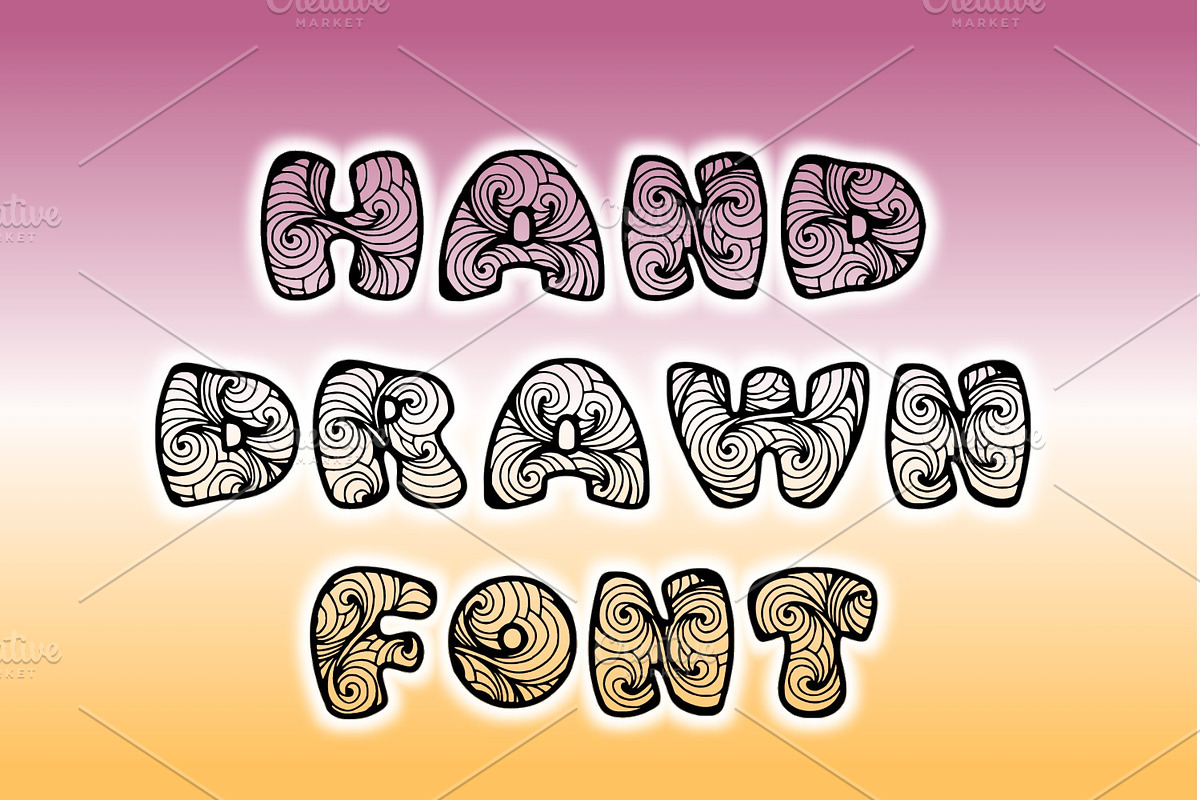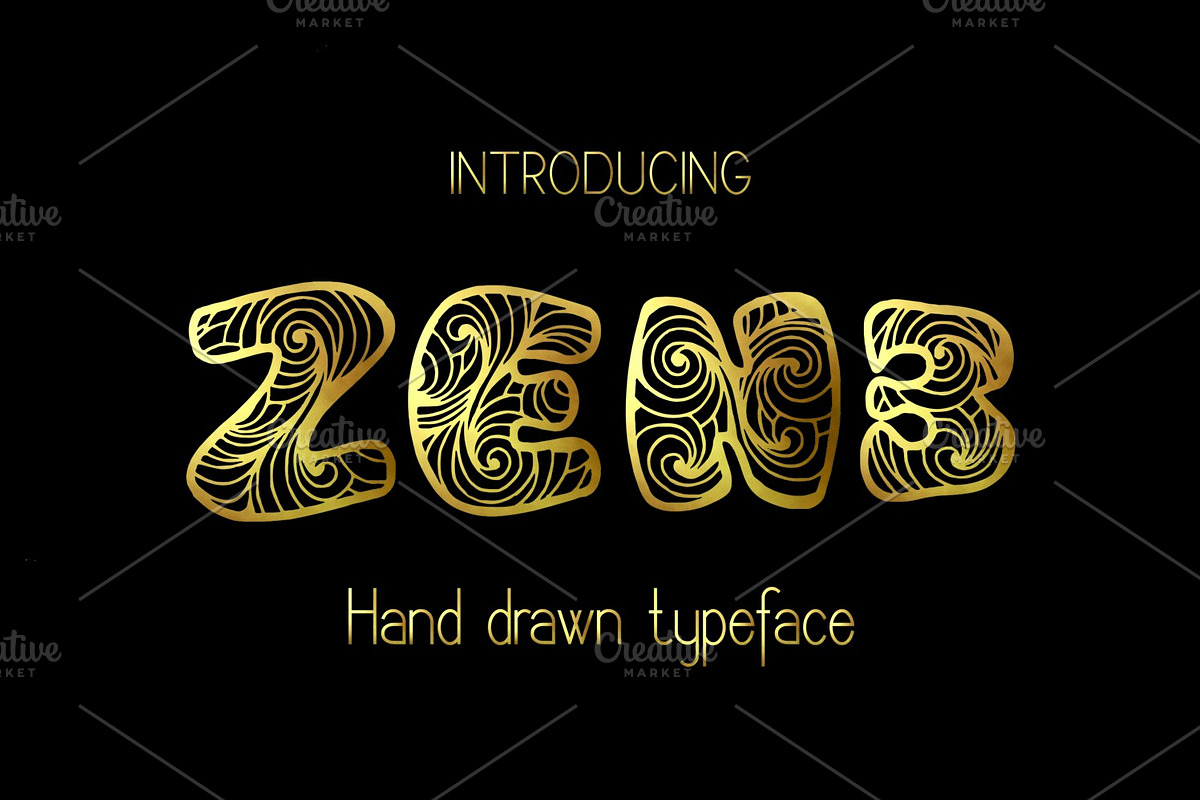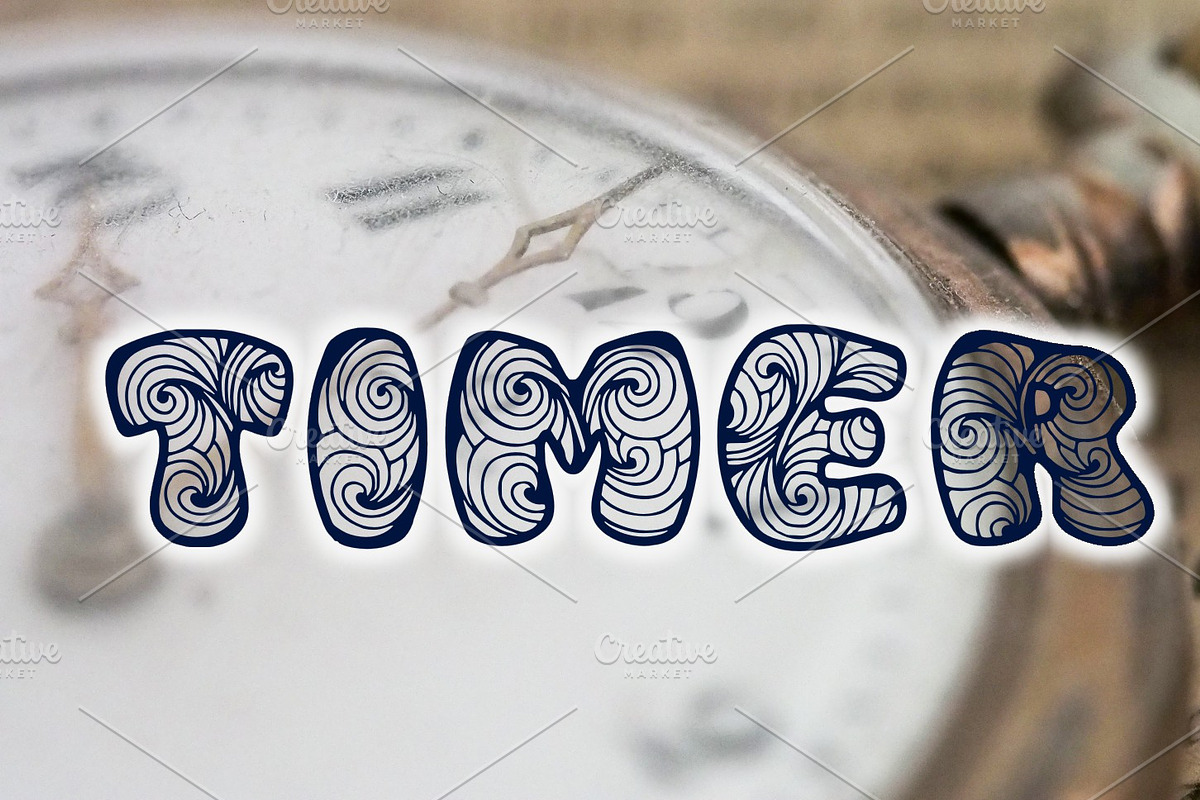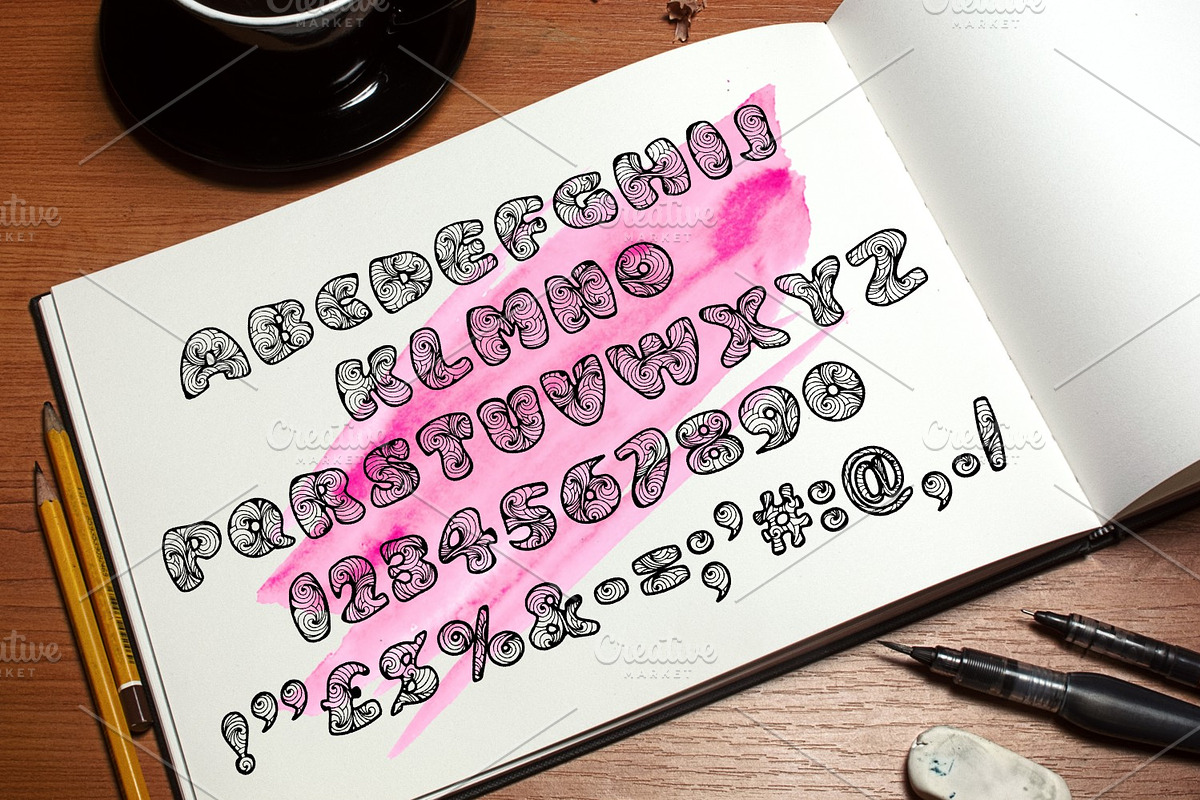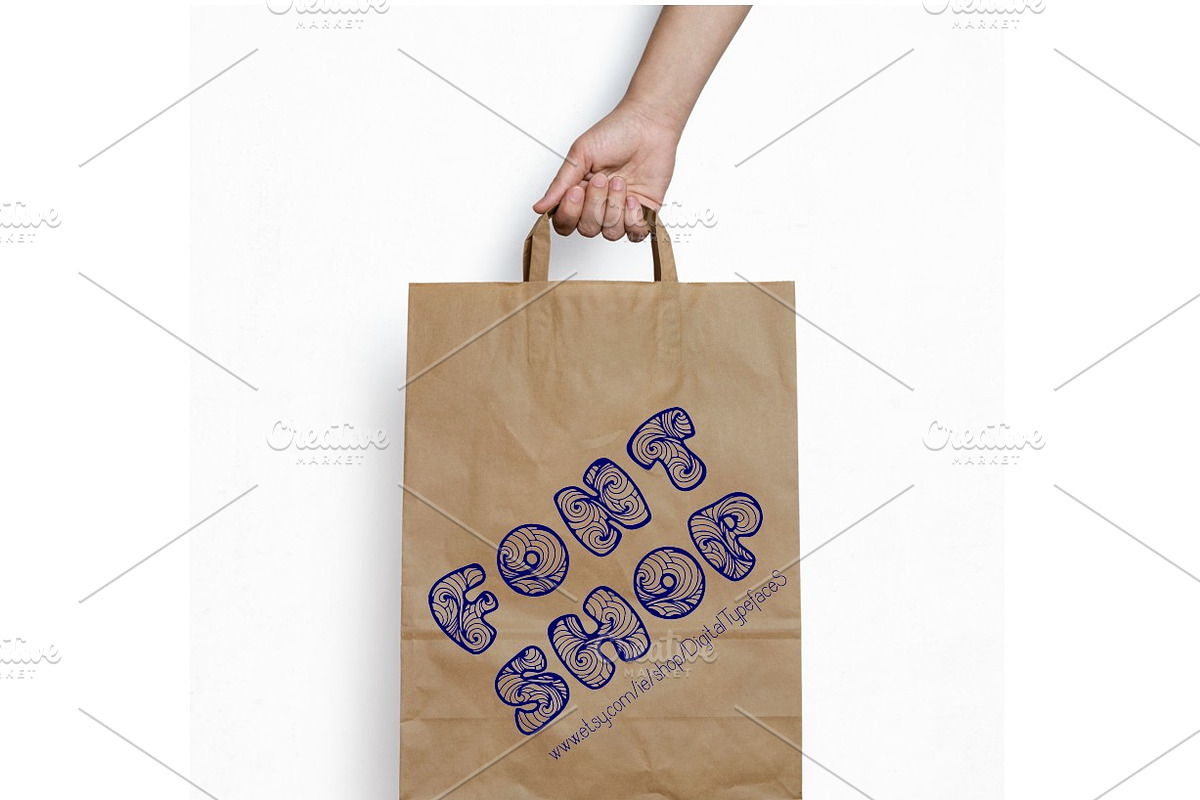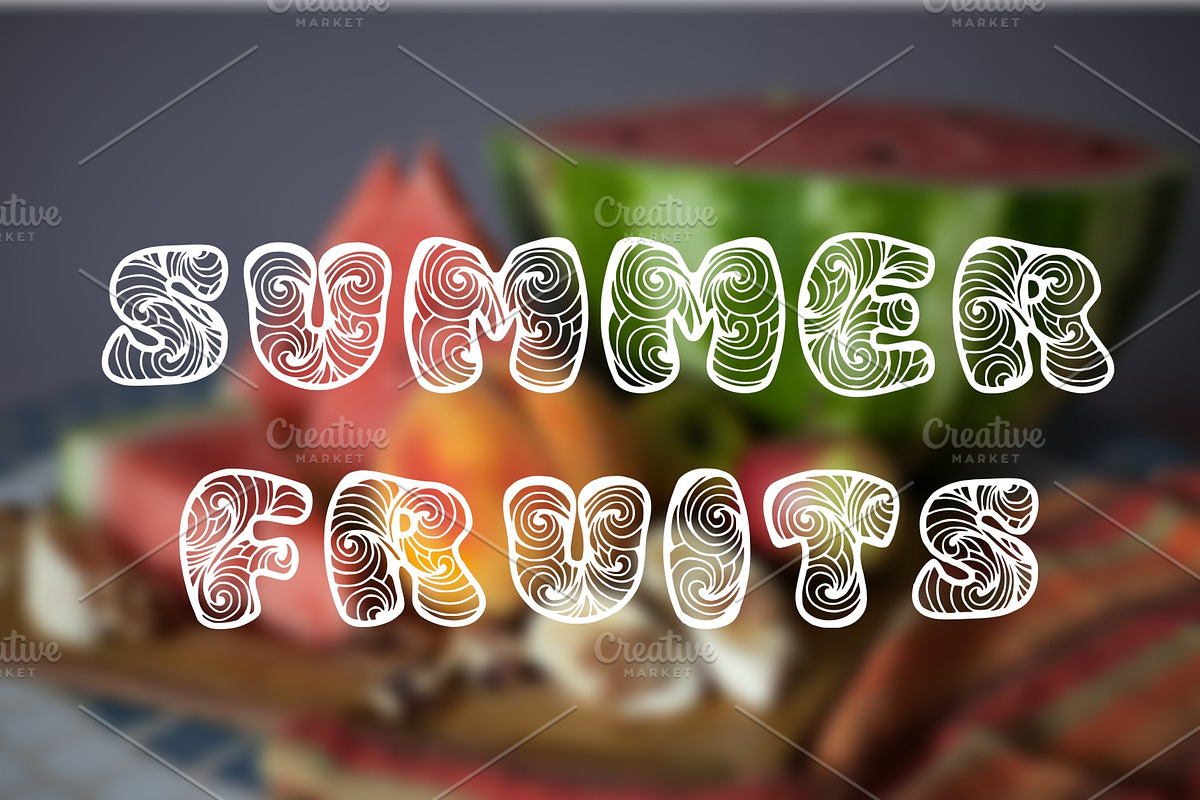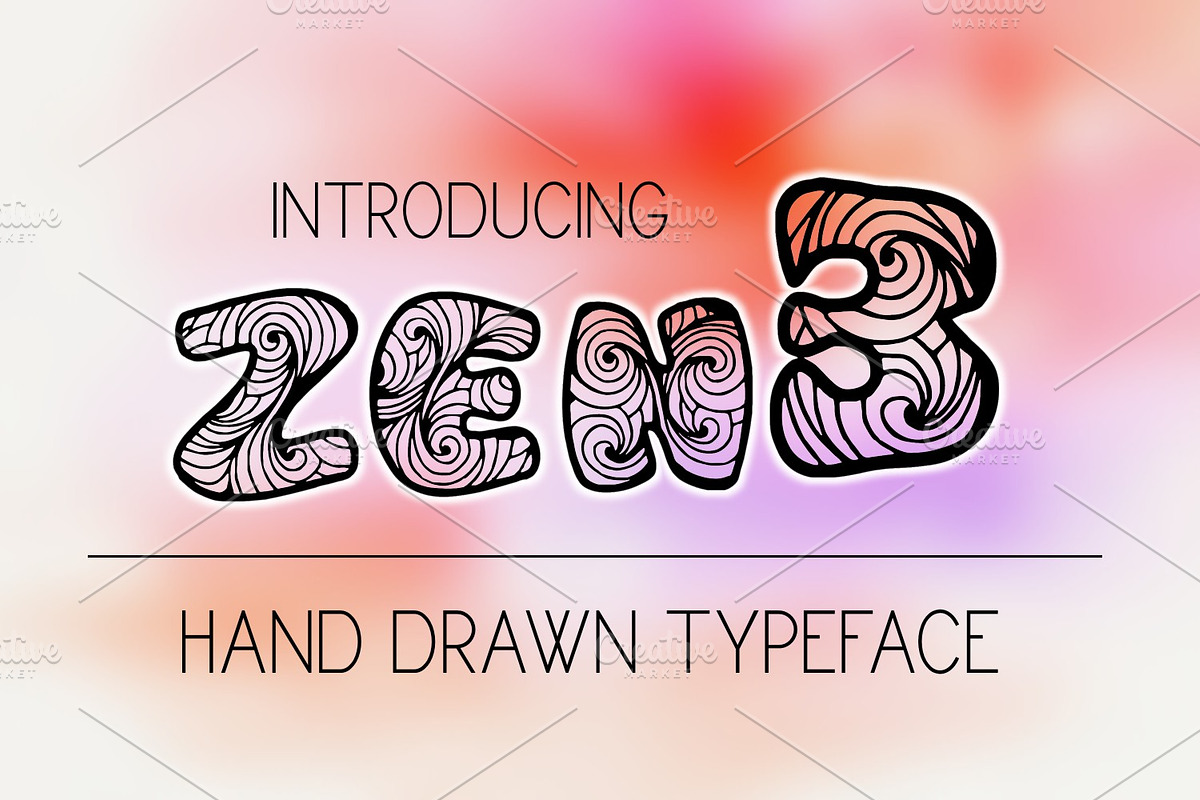
Zen3 Font
Zen3 is a carefully drawn font. It was drawn by hand on a digital tablet. Digizen is great for branding, logos, titling, signage, poster, flyers or t-shirts design, headlines and more!
Zen3 Font by Digital Typeface Studio fits naturally into Branding, posters, packaging, typography.